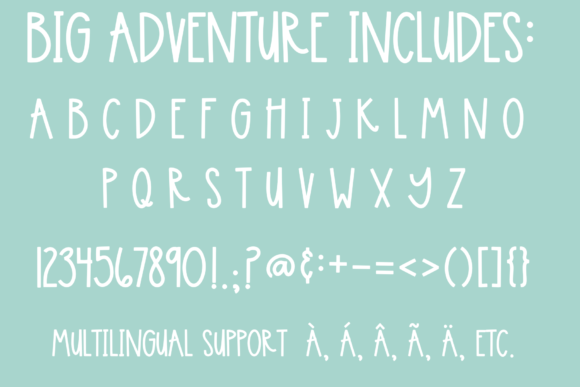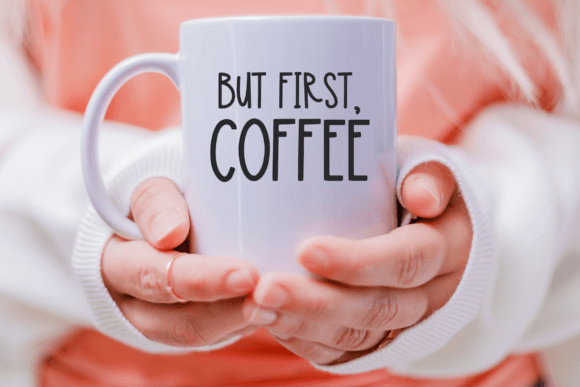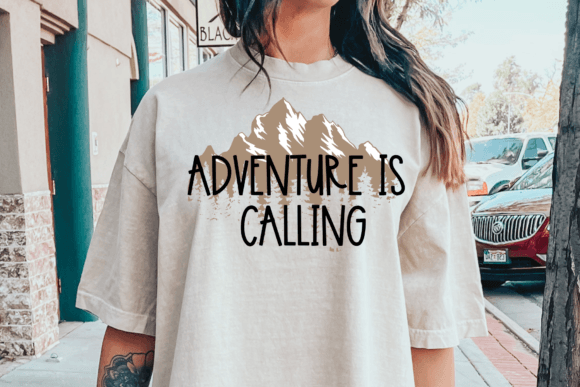
Big Adventure Font
Introducing Big Adventure, adorable Handwritten Font for Cricut – a charming and cute addition to your creative projects! Designed specifically for Cricut users, our handwriting Font is compatible with SVGs, ensuring effortless integration with your cutting machine. With its playful and fun handwriting style, it adds a touch of whimsy and personality to any project. Whether you’re crafting cards, scrapbooking, or designing SVG files, this font will bring your creations to life. Get ready to impress with our amazing Cricut font collection and unlock endless possibilities for your artistic endeavors!